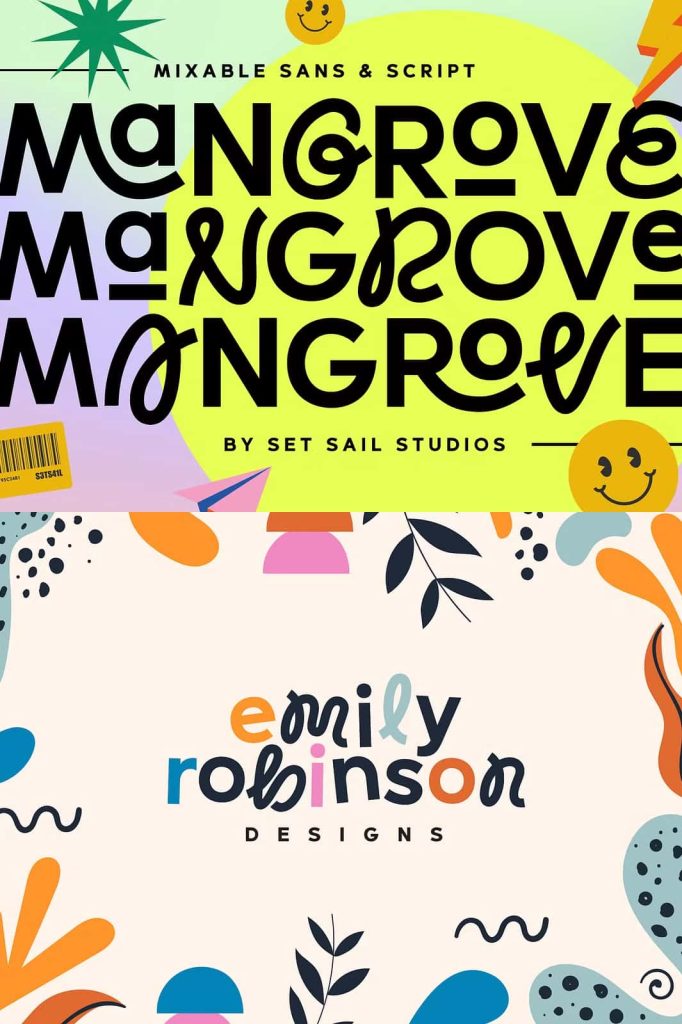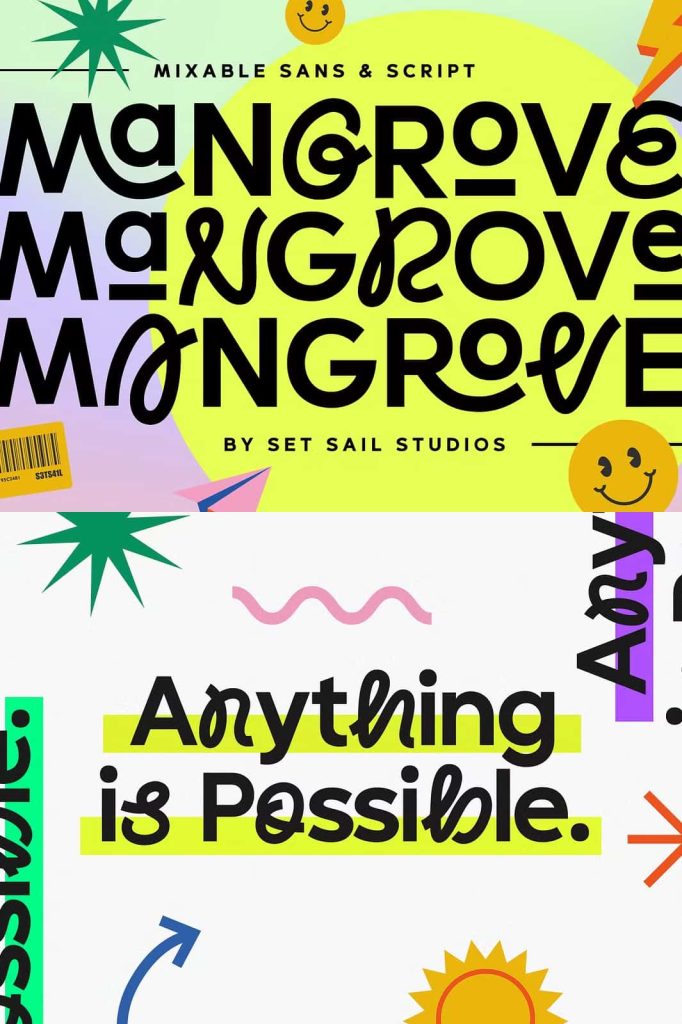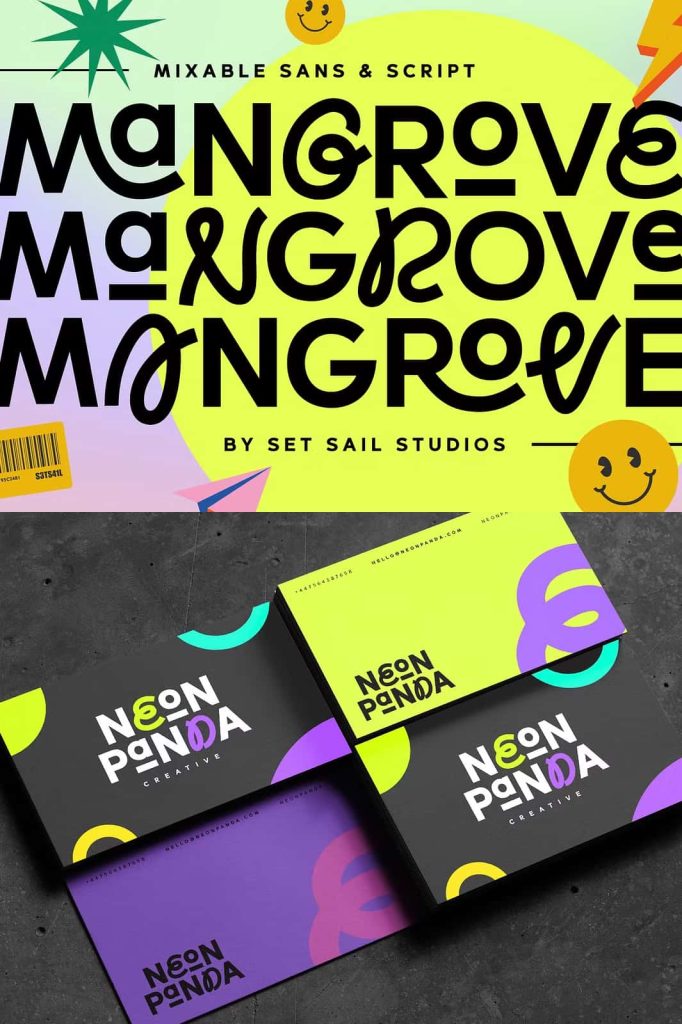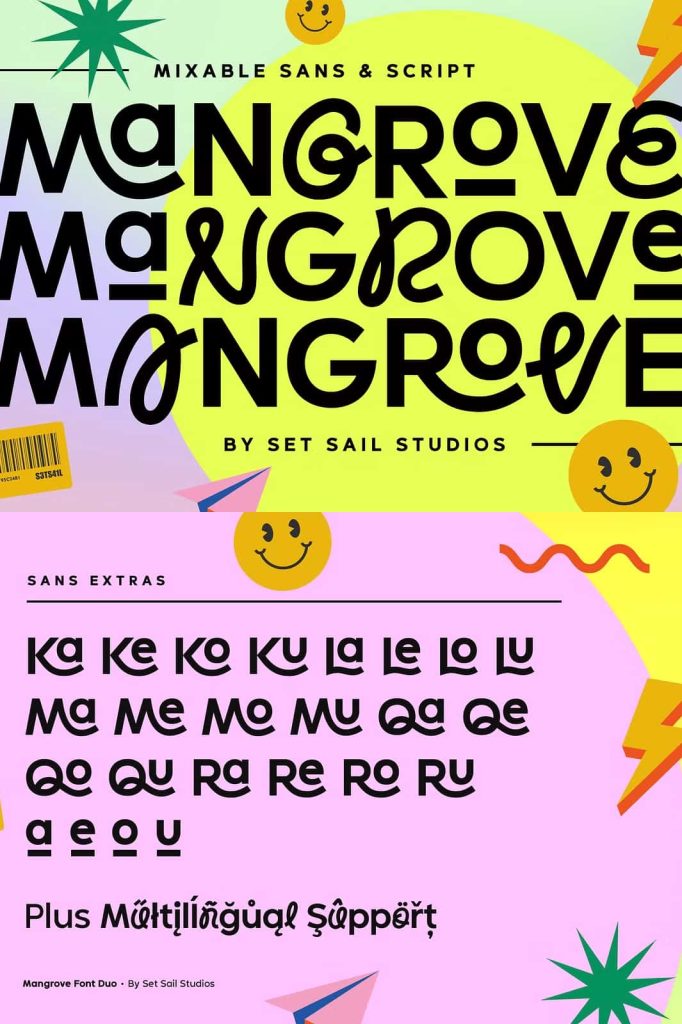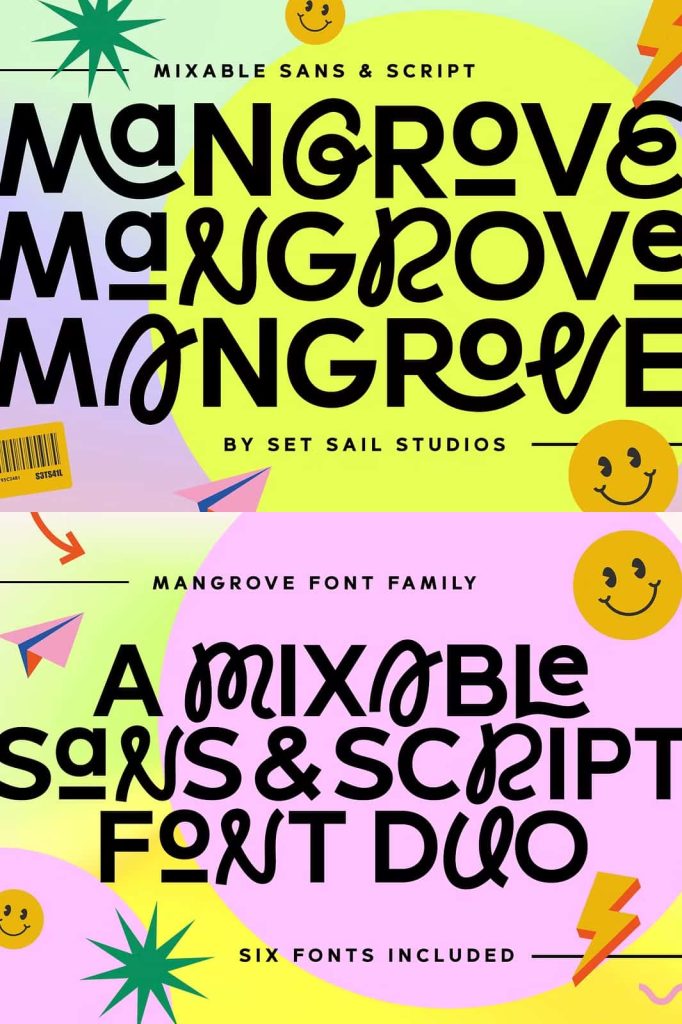
Mangrove Font Duo: The Perfect Blend of Sans and Script Elegance
The Mangrove Font Duo is a stunning and playful combination of Sans and Script typefaces created to inspire creativity and elevate your design work. Whether you’re a professional designer, a brand creator, or a passionate DIY artist, this font pairing delivers an irresistible balance of charm, clarity, and versatility. Each character has been meticulously designed to ensure smooth pairing and consistent visual harmony across all creative projects.
Experience the Art of Perfect Font Pairing
Choosing the right font combination can make or break your design. The Mangrove Font Duo eliminates that challenge by offering two complementary styles that work seamlessly together. The bold Sans font offers a modern, clean aesthetic—ideal for headlines, logos, and minimalist branding. The Script font adds a touch of personality and warmth with its smooth, handcrafted flow, perfect for invitations, quotes, packaging, and social media graphics.
When used together, these fonts create eye-catching typography that stands out without feeling forced. Their natural contrast between structure and flair makes them perfect for a wide variety of projects, from elegant wedding stationery to trendy brand identities.
Versatility That Inspires Creativity
With the Mangrove Font Duo, your creative potential expands. The fonts are designed to perform beautifully both on digital screens and in print, maintaining excellent readability and stylistic integrity. Use the Sans font to communicate professionalism and simplicity, while the Script font adds personality and emotional appeal. Together, they deliver a modern yet timeless aesthetic that captures attention instantly.
Each typeface includes a full set of uppercase and lowercase letters, numbers, punctuation, and multilingual support. The Script version also includes stylistic alternates and ligatures to give your designs an authentic handwritten touch. This flexibility allows designers to customize and adapt the fonts effortlessly to any creative concept or branding need.
Perfect for a Wide Range of Projects
The Mangrove Font Duo is suitable for a diverse range of design applications, including:
- Branding and logo design
- Product packaging and labels
- Wedding invitations and stationery
- Editorial layouts and magazine titles
- Social media posts and digital marketing materials
- Website headers and promotional graphics
From elegant minimalist brands to fun, playful projects, this font duo brings harmony and energy to every layout. Its adaptability ensures that no matter your theme or medium, you’ll achieve a polished, cohesive visual impact.
Designed for Designers Who Value Quality
The Mangrove Font Duo isn’t just another font pairing—it’s a thoughtfully crafted design tool that saves you time while enhancing your creativity. Every curve, line, and spacing detail has been refined for smooth performance across modern design software. This means you can focus on creating powerful visual messages instead of struggling to find compatible typefaces.
Whether you’re designing for print or web, small businesses or luxury brands, the Mangrove Font Duo offers the perfect foundation for professional and expressive typography. Its combination of charm and clarity makes it an essential addition to any designer’s toolkit.
Conclusion: A Font Duo That Makes Every Design Shine
The Mangrove Font Duo delivers more than just beautiful letters—it offers balance, creativity, and impact. By merging the clean sophistication of a Sans typeface with the character and movement of a Script font, it empowers designers to create bold, memorable, and expressive work. Add this duo to your collection and experience typography that truly speaks to your audience.
Bring your ideas to life with the Mangrove Font Duo — where modern precision meets artistic expression.